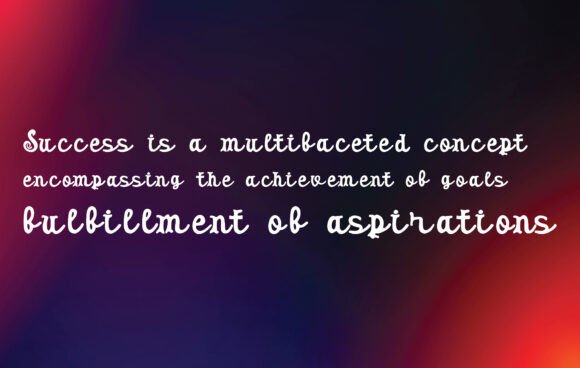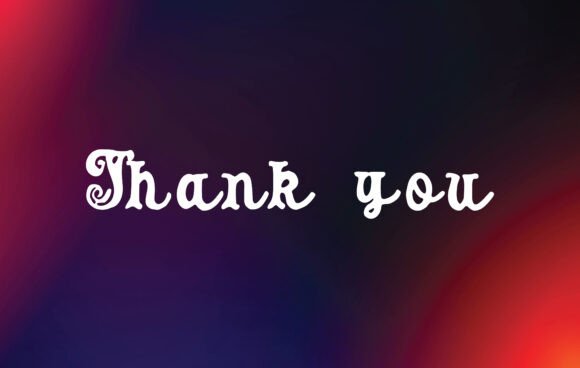
Introduction to Matheo Font
Have you ever been stuck in the middle of a creative project, staring at a blank canvas or a dull design, desperately searching for that one element to bring it all together? That’s when the perfect design resource can make all the difference. For designers looking to elevate their work, I’m excited to introduce you to the lovely and beautiful Matheo Font. This high-quality font has the potential to take your creative ideas to the highest level.
Key Features of Matheo Font
- High-quality design: Matheo Font offers a professional and elegant aesthetic, making it a valuable resource for creative projects.
- Transparent background: This font features a transparent background, allowing designers to easily layer and combine it with other design elements.
- Unique characteristics: The font’s unique blend of modern and classic elements makes it a standout design resource for creative projects.
- Easy to use: Matheo Font is designed to be easy to use, with a clear and consistent typography that makes it simple to integrate into any design.
Honest Review: Matheo Font
I recently had the chance to work with the Matheo Font, and I must say it’s been a game-changer for my creative projects. The high-quality design and versatility of this font make it an excellent resource for any designer.
- ✨ Customization options: The Matheo Font offers a wide range of styles and weights, allowing me to customize it to fit my design needs.
- ✨ Transparent background: This feature is perfect for creating designs with a clean and minimalist aesthetic.
However, I did encounter a few limitations while using the Matheo Font:
- ⚠️ Limited font pairing options: While the Matheo Font is excellent on its own, I found it challenging to pair it with other fonts without compromising the overall design.
Overall, I’m impressed with the Matheo Font. Its high-quality design and customization options make it a valuable resource for any designer. While it may have some limitations, I believe it’s an excellent choice for creative projects that require a clean and modern aesthetic.
To get the most out of Matheo Font, be sure to use it on a transparent background to really make it pop. You can also experiment with different font sizes and colors to create a unique look. Additionally, consider using Matheo Font in combination with other design elements, such as graphics and images, to create a visually appealing design.
Matheo Font is commonly used for creative projects, such as graphic design, digital art, and typography. It’s also great for use in presentations, documents, and other business materials. With its high-quality design and transparent background, Matheo Font is a versatile design resource that can be used in a variety of applications.